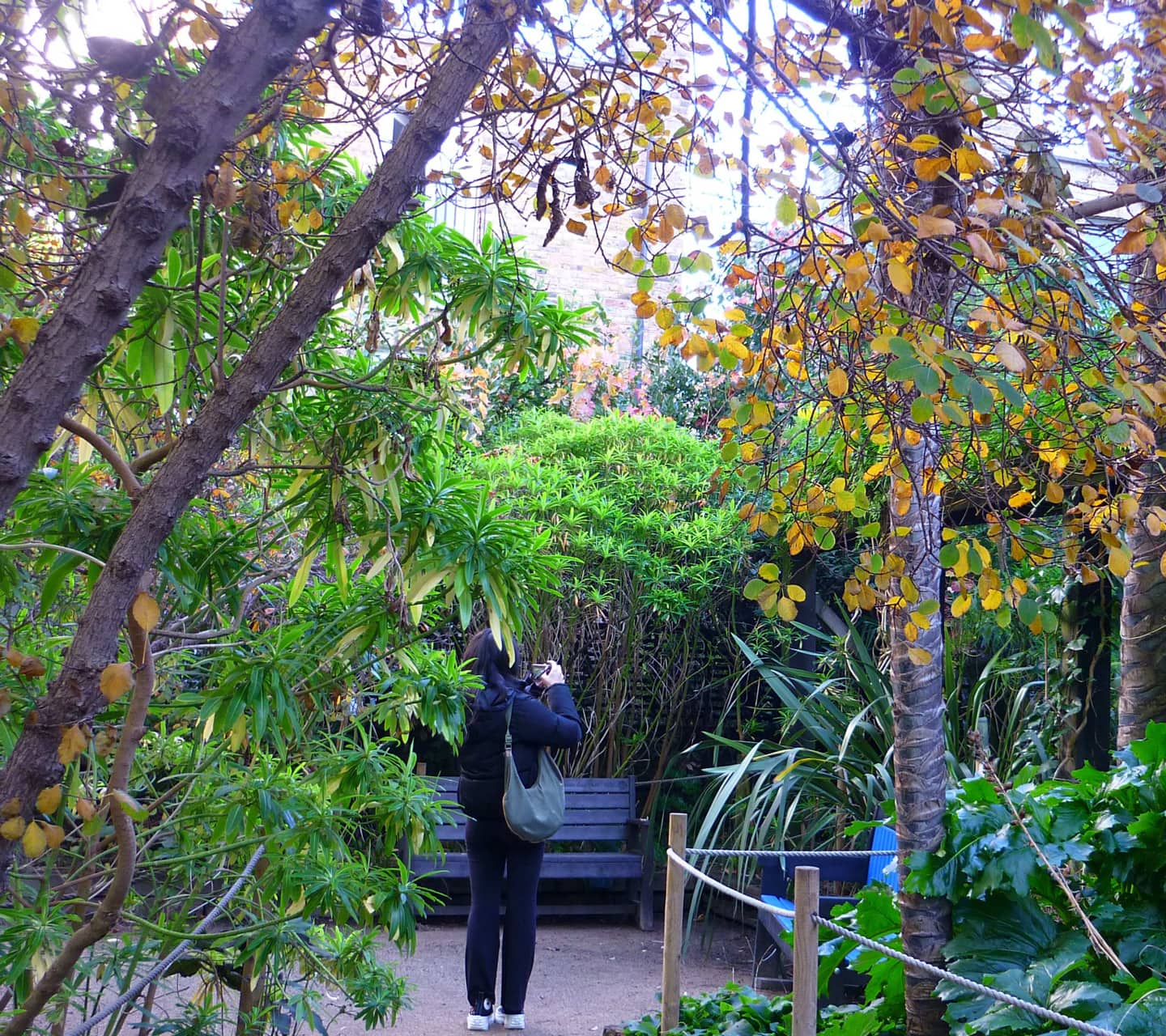
Bonatur
Bonnington Arcus explores the close-knit community of Bonnington Square in Vauxhall. Since the revival of the square in the 80’s by squatters, residents have come together to create a beautiful and serene atmosphere. This is seen through the building of the public garden and café where residents used to cook for one another. To represent this in a type format, I used the shape of the arches above doors and windows as a repeated motif found on all of the houses in Bonnington, and used the shape of the bricks at the end of the arches as serif details.